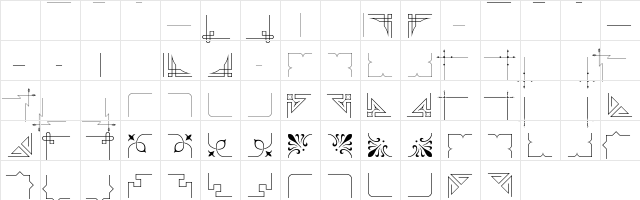
Complete HotmetalBorders One glyph index. Displaying only characters natively supported by HotmetalBorders One font.
HotmetalBorders is a composed and adaptable typeface that performs quietly and consistently across a wide range of design contexts.
Pro Tip: Use HotmetalBorders in both headline and body roles to test its range before committing to a single application.